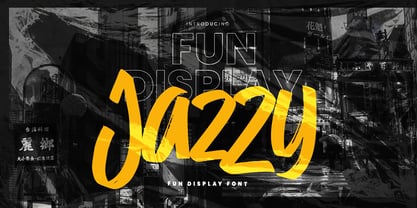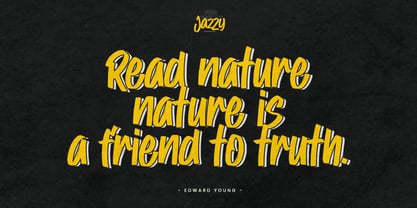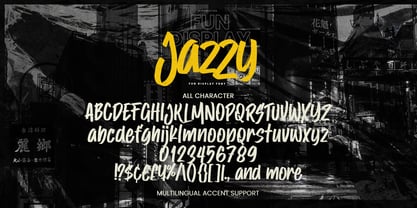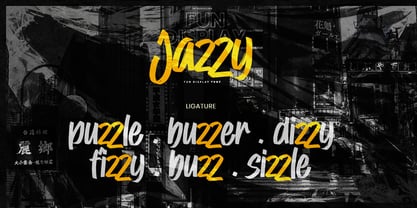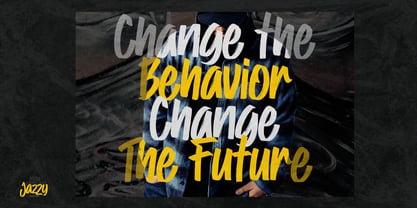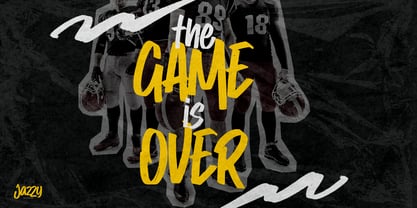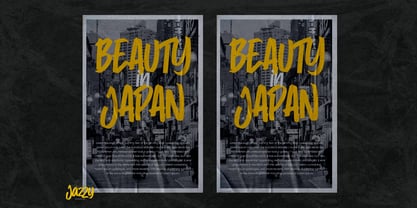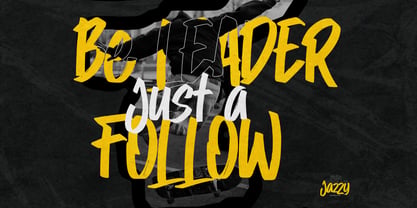
Jazzy
by Gassstype
The Jazzy Font Family was designed by Abdul Malik Wisnu and published by Gassstype. Jazzy contains 1 styles. More about this family
Introducing Font Jazzy, a fun display font that features a textured natural style with a classy touch. This versatile font is perfect for a variety of creative projects, including logos, printed quotes, invitations, cards, product packaging, headers, logotypes, letterheads, posters, and more. Font Jazzy adds a charming, authentic, and relaxed character to your text, making it ideal for watermarks on photography, branding, advertisements, stationery, wedding designs, labels, and special events. Elevate your designs with this unique handwritten aesthetic!
Designers: Abdul Malik Wisnu
Foundry: Gassstype
Based in Ambarawa - Semarang, Indonesia, and established in 2020 by Anang Fibriyanto and Malik Wisnu, Gassstype Studio is a foundry that builds tools and types, basically to show and promote his typefaces. He began designing fonts as a hobby in 2017 and specialized in kinds of brush fonts considered more useful and durable with a particular focus on creating easy and clever solutions for designers. Other than fonts, we love any form of creativity, photography, brush lettering, and more